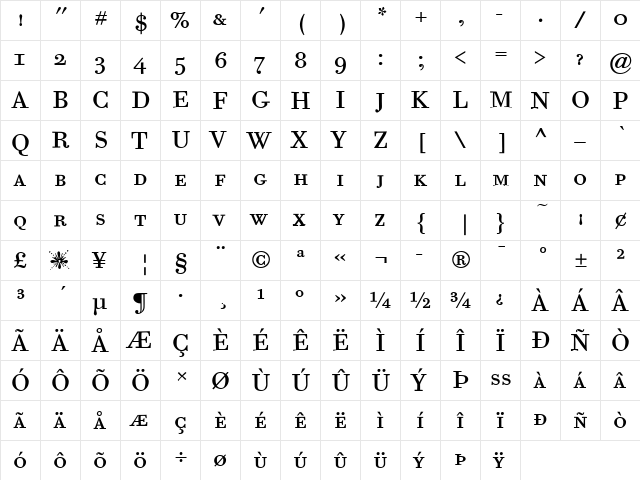
Bodoni Six ITC Book
Design Context for Bodoni Six ITC Typeface
Bodoni Six ITC takes a measured approach to typography — its balanced proportions and neutral character make it a reliable workhorse for both digital and print work.